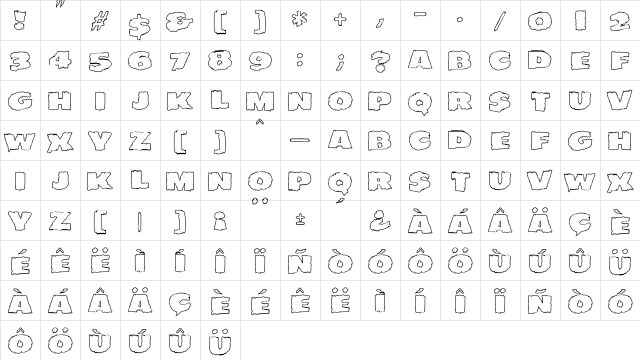
JMH EERIE OUT Regular Free Font
JMH EERIE OUT Regular
Design Context for JMH EERIE OUT
JMH EERIE OUT is a composed and adaptable typeface that performs quietly and consistently across a wide range of design contexts.
Pro Tip: Use JMH EERIE OUT in both headline and body roles to test its range before committing to a single application.